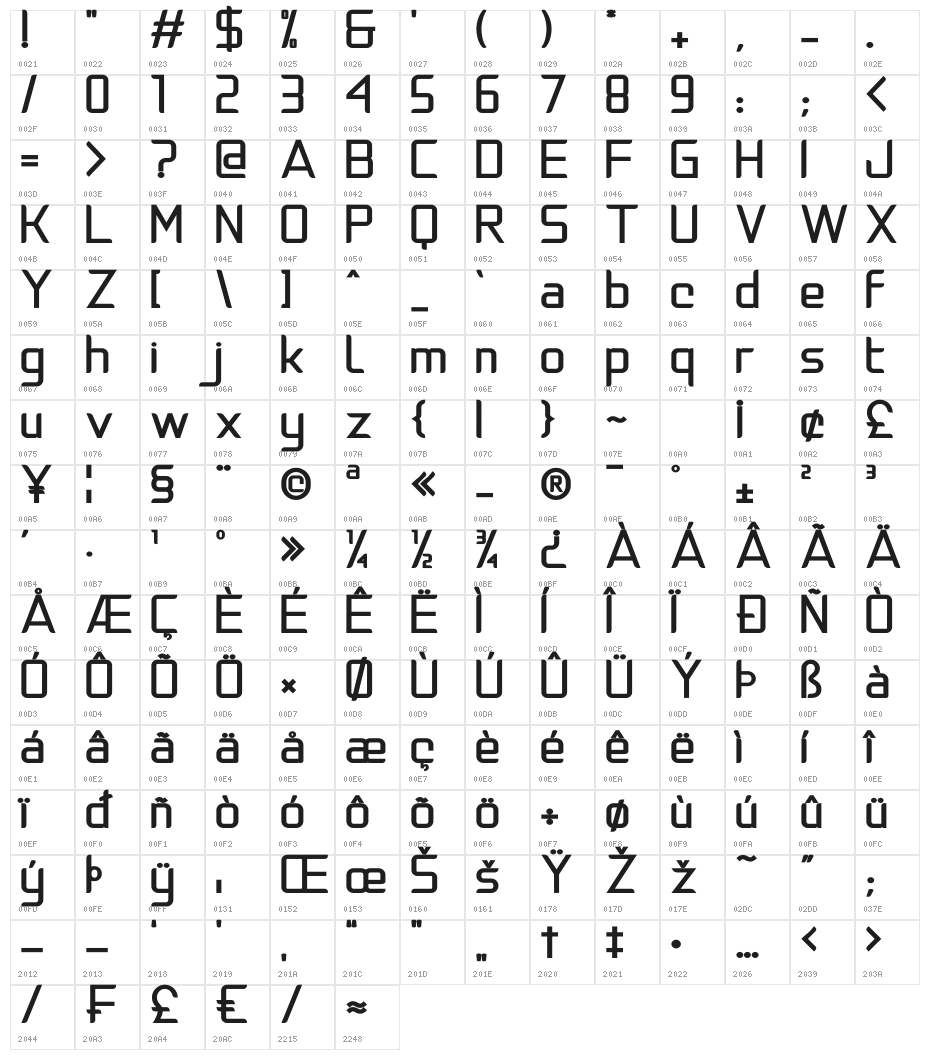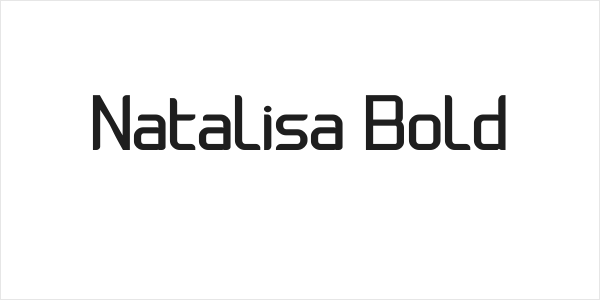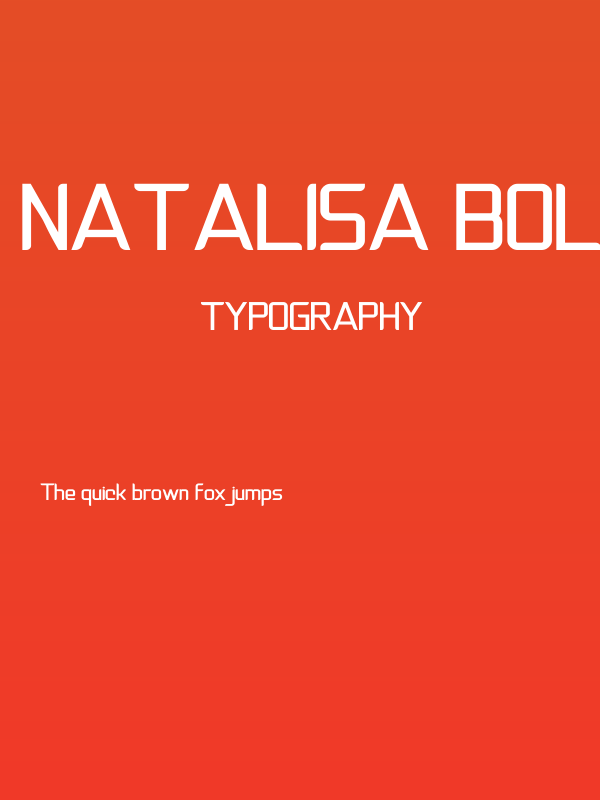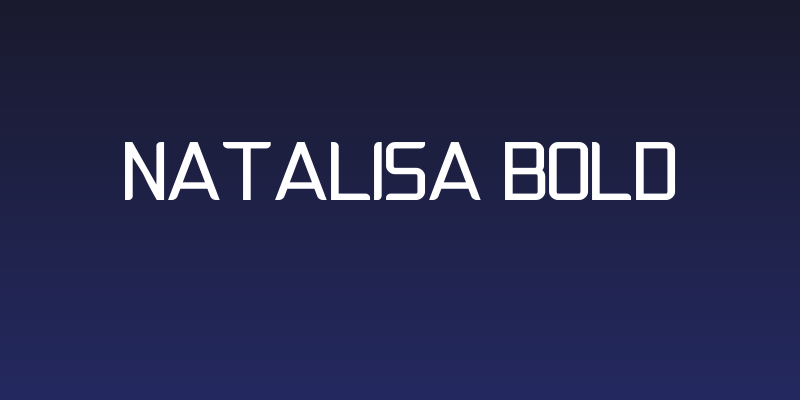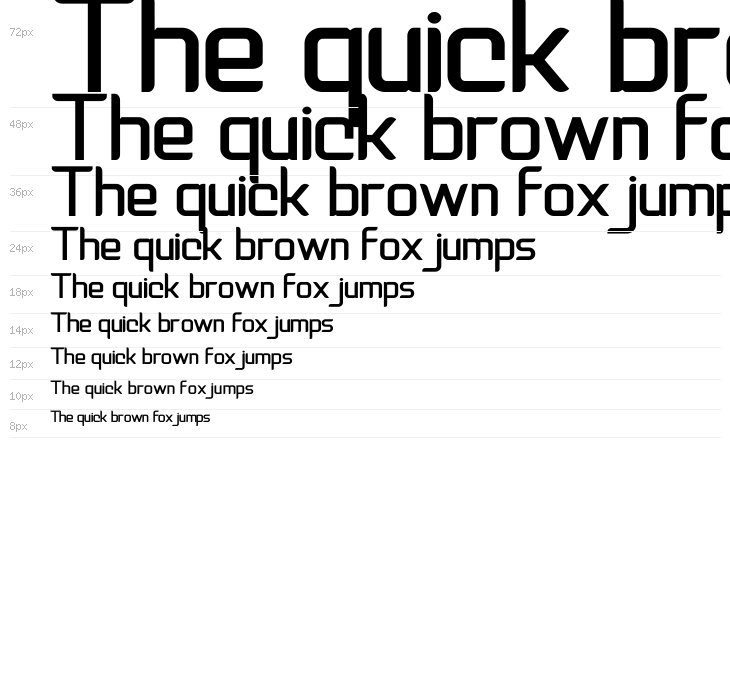
Natalisa Bold Font
Natalisa Bold Description
This font features a modern and geometric design with a bold presence. The characters are constructed with clean lines and a uniform stroke width, giving it a sleek and contemporary appearance. The uppercase letters are angular and structured, while the lowercase letters maintain a consistent style with rounded edges. The numerals are distinct and easy to read, complementing the overall design. Special characters are included, maintaining the font's cohesive aesthetic. This font is suitable for projects that require a strong and modern visual impact.
Natalisa
| Proposed Projects | Ideal for branding, headlines, posters, and digital media that require a modern and bold look. |